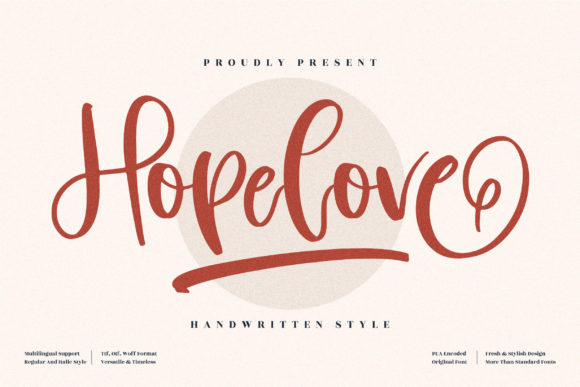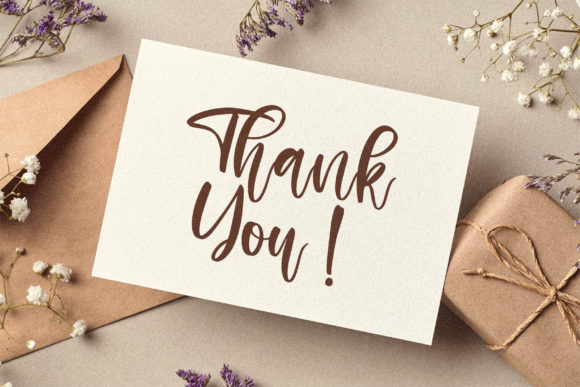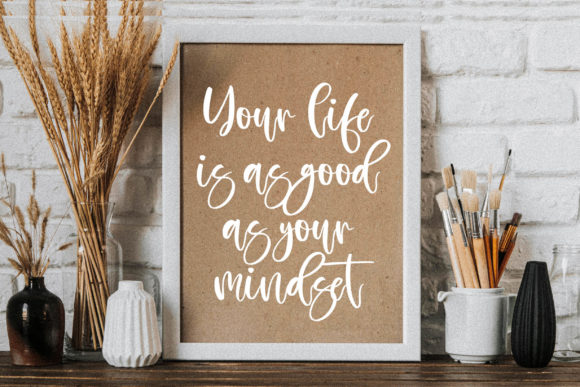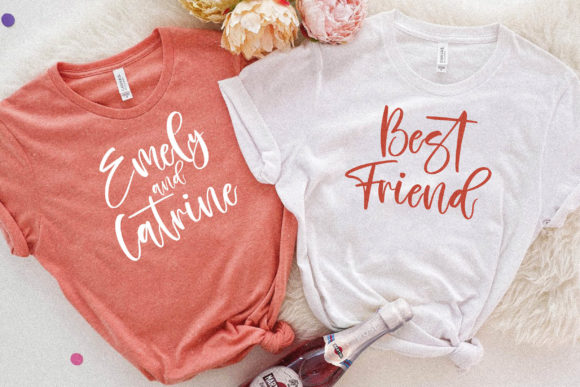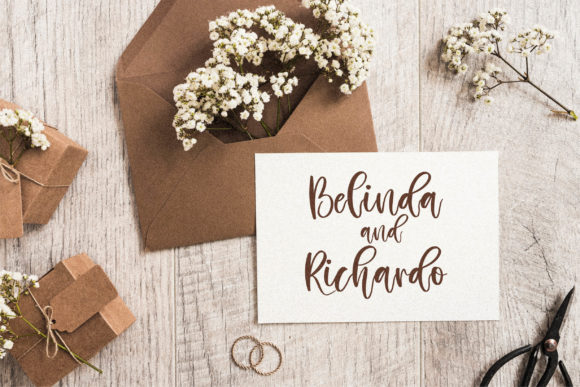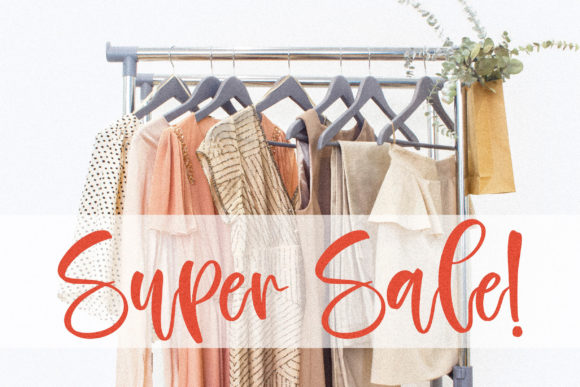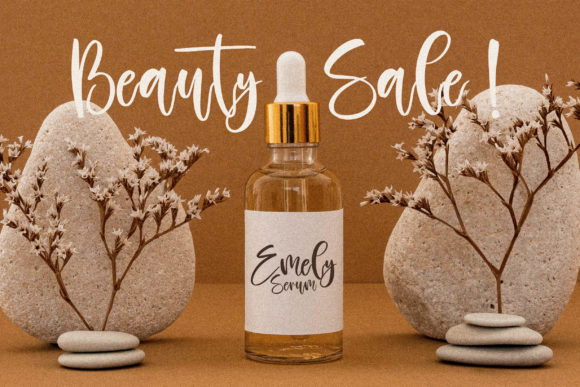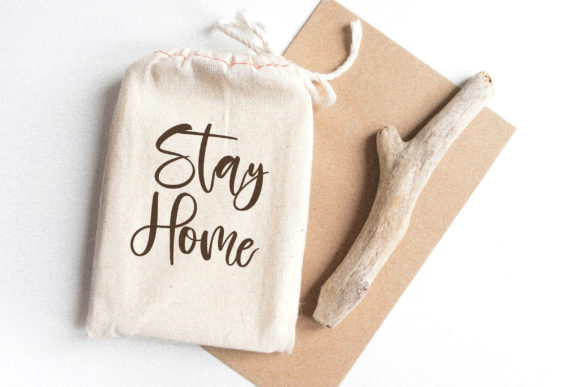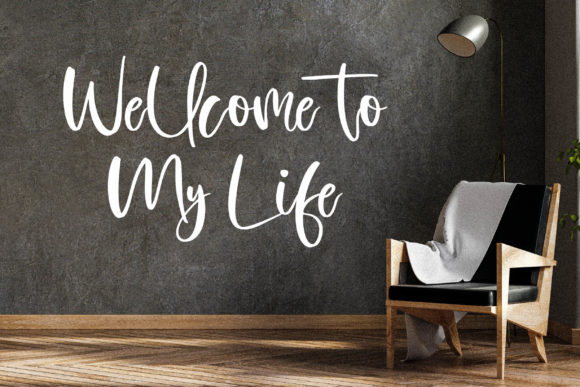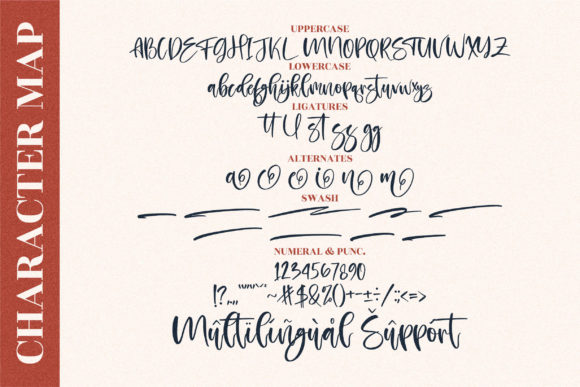
Hopelove Font
About Hopelove Font
Hopelove is a sweet, whimsical and flowing script font. Featuring characters that dance along the baseline, this font will add a luxury spark to any design project that you wish to create!